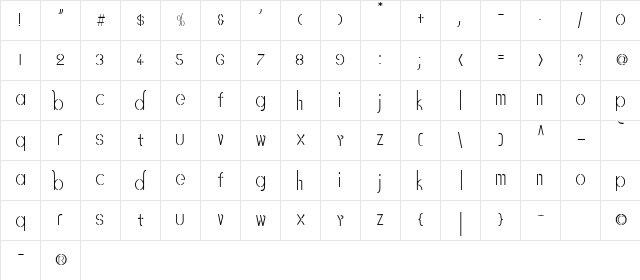
motifRegular Regular
Design Context for motifRegular Typeface
motifRegular takes a measured approach to typography — its balanced proportions and neutral character make it a reliable workhorse for both digital and print work.